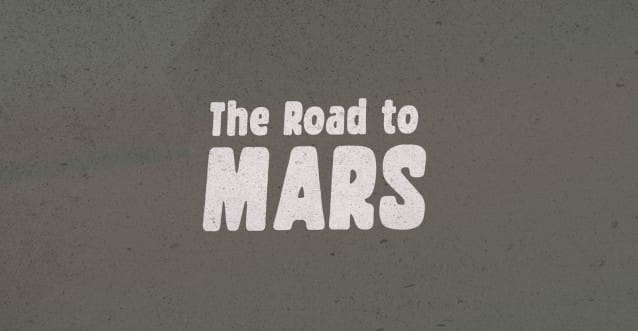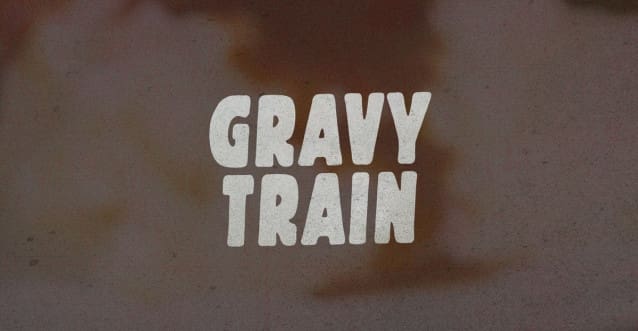
Gravy Train Font
Gravy Train Font is a chunky, comic, and cartoon display font. With its neat and joyful personality, this font will enhance any project you wish to create!